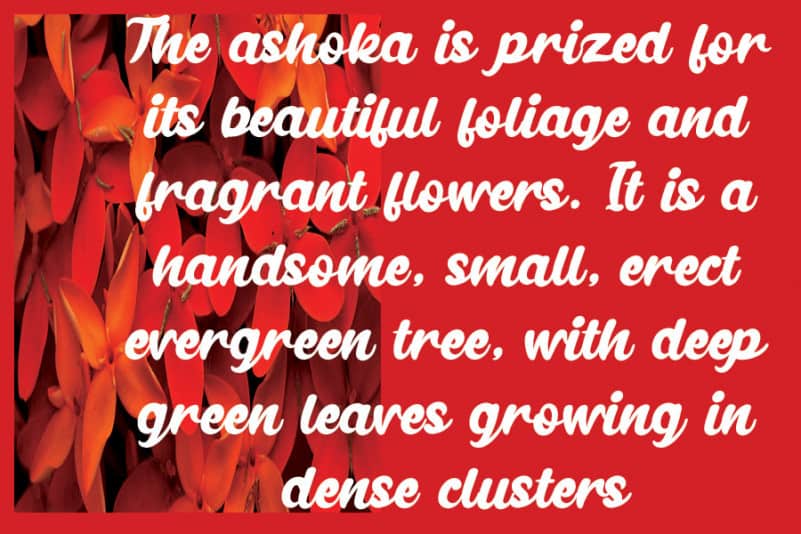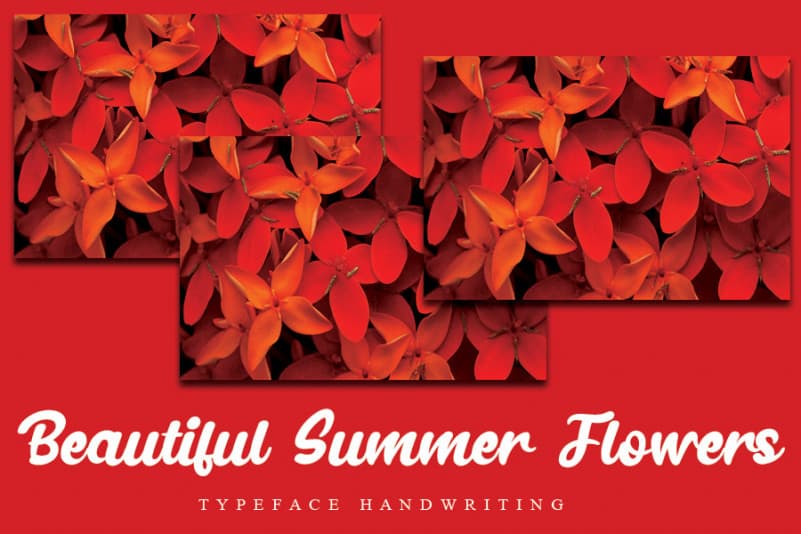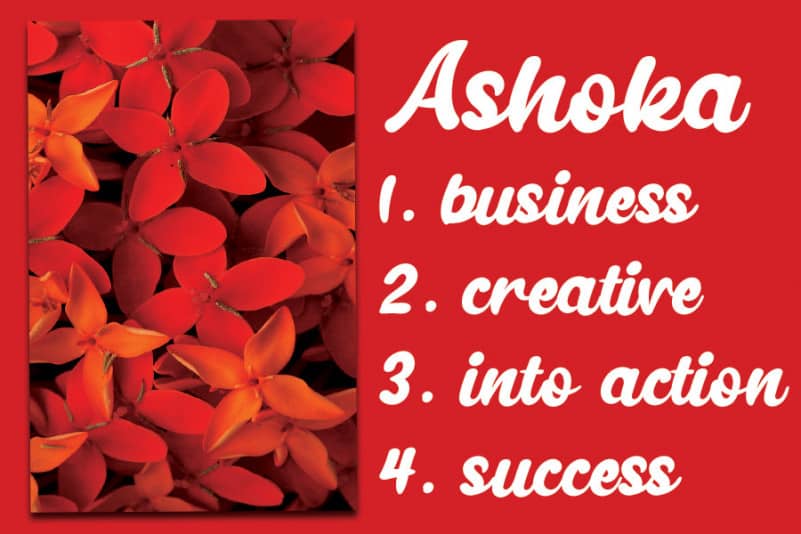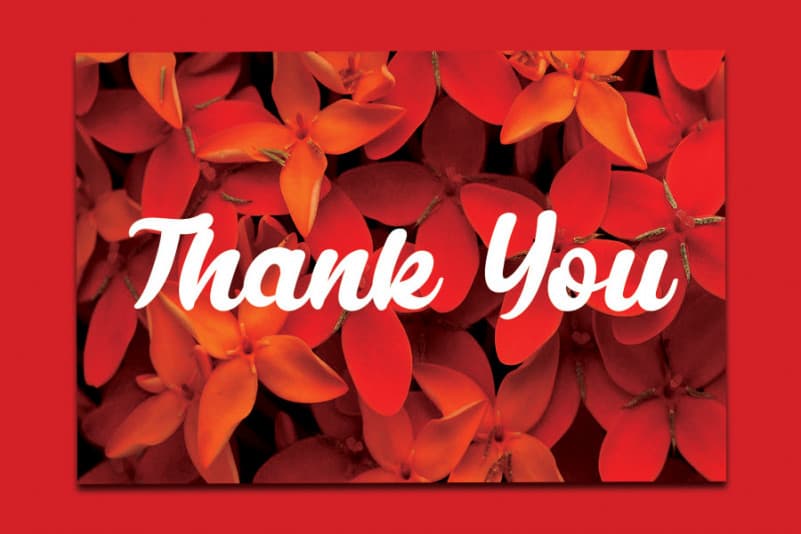
Ashoka Bold Script Font
Ashoka Font is a bold, flowing and chunky lettered handwritten font. Add this powerful font to your designs and make them stand out!